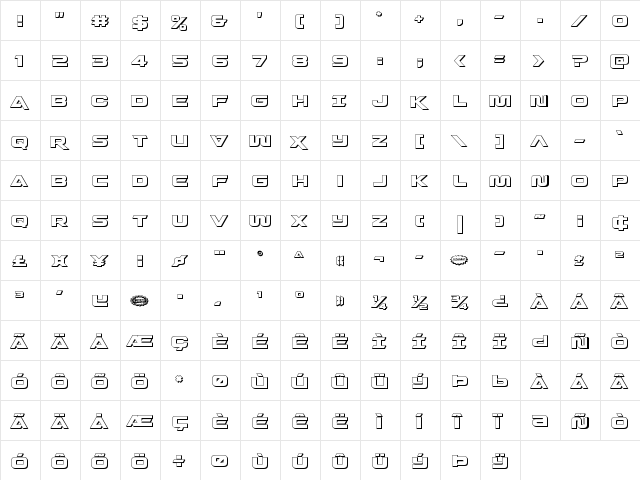
Quark Storm 3D Regular
Design Context for Quark Storm 3D Typeface
Quark Storm 3D is a composed and adaptable typeface that performs quietly and consistently across a wide range of design contexts.